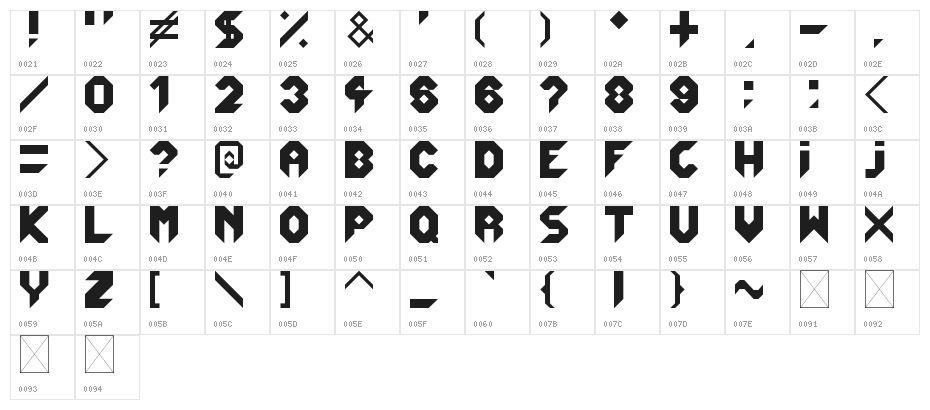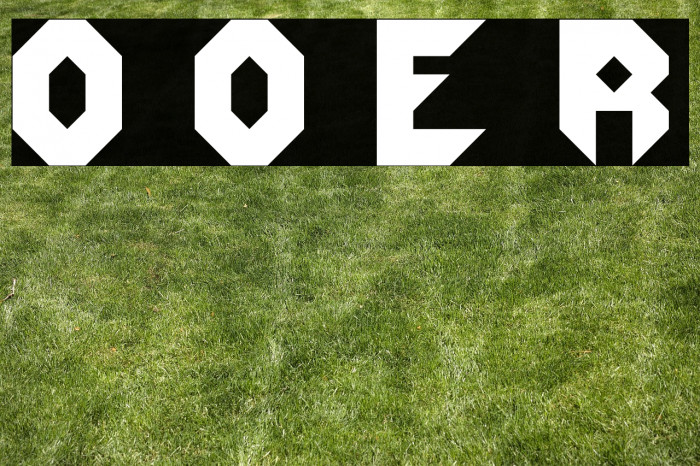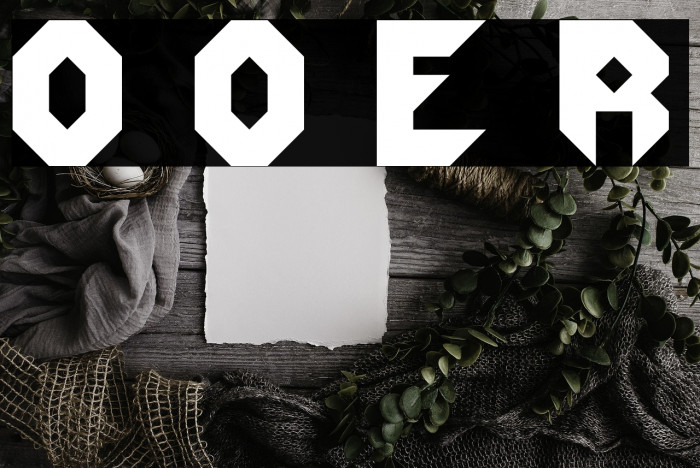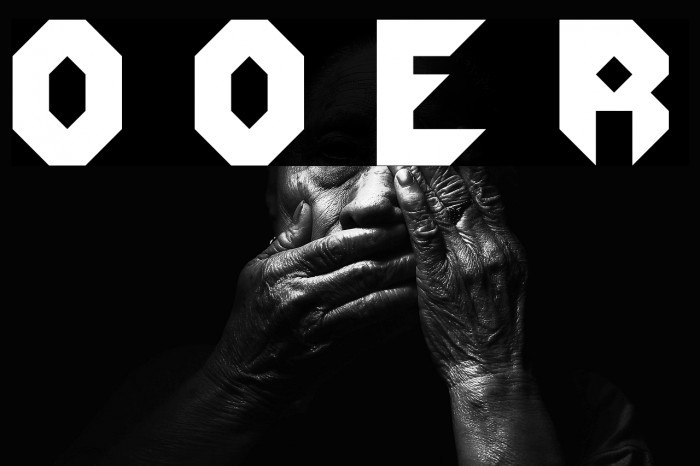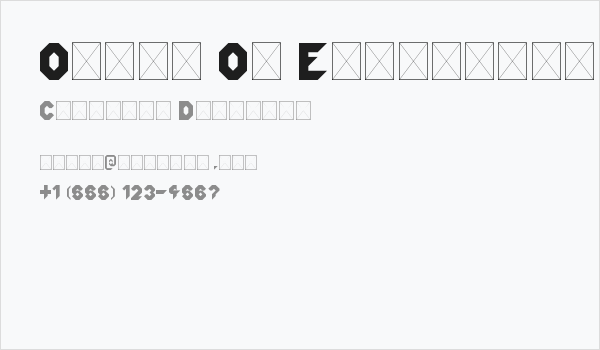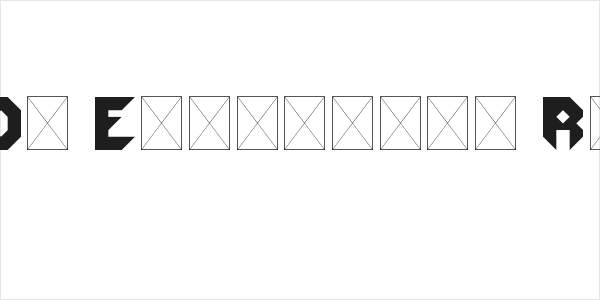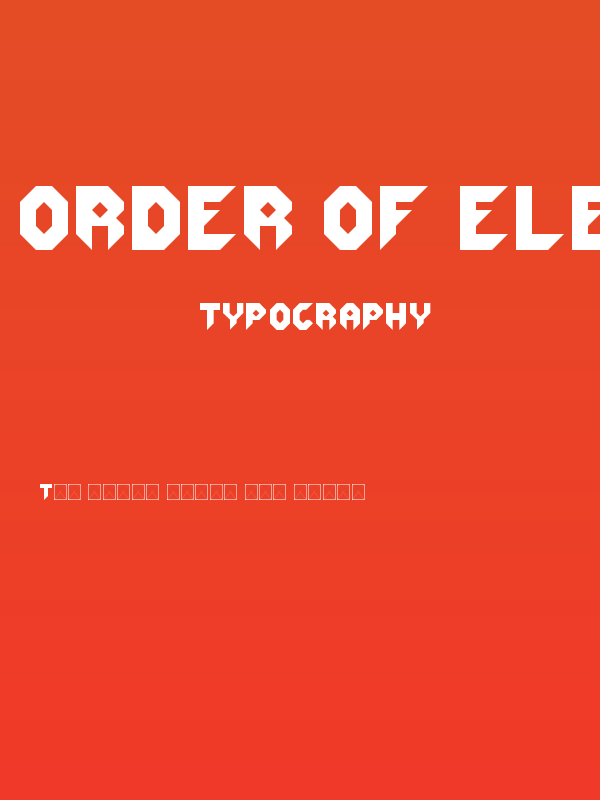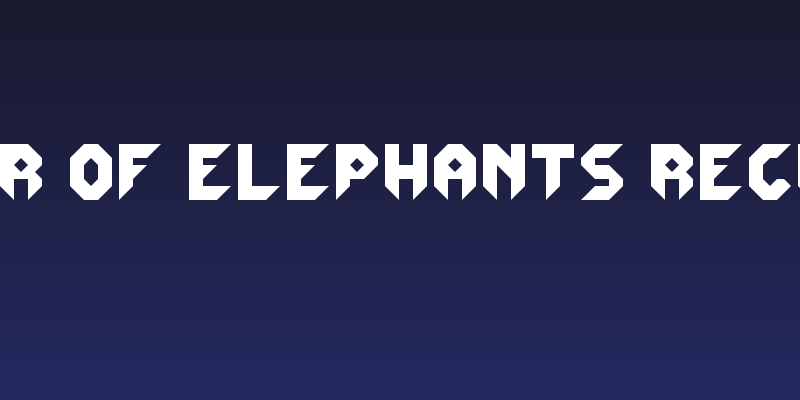
Order Of Elephants Regular Font
Order Of Elephants Regular Description
This font features a bold and geometric design with sharp angles and a strong presence. The characters are constructed with a blocky, angular style that gives them a modern and edgy appearance. The uppercase and lowercase letters share a consistent design, maintaining the same angular and bold characteristics. Numbers and special characters are also designed to match the overall aesthetic, ensuring a cohesive look across all elements. The font's unique style makes it stand out, making it suitable for projects that require a strong visual impact.
| Proposed Projects | Ideal for branding, posters, headlines, and any design project that requires a strong, modern aesthetic. |